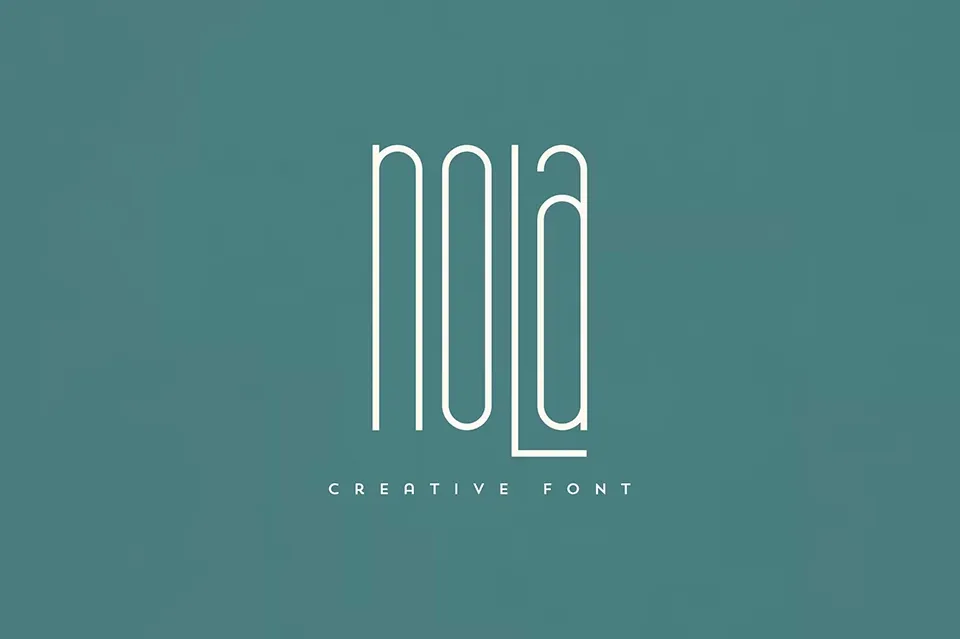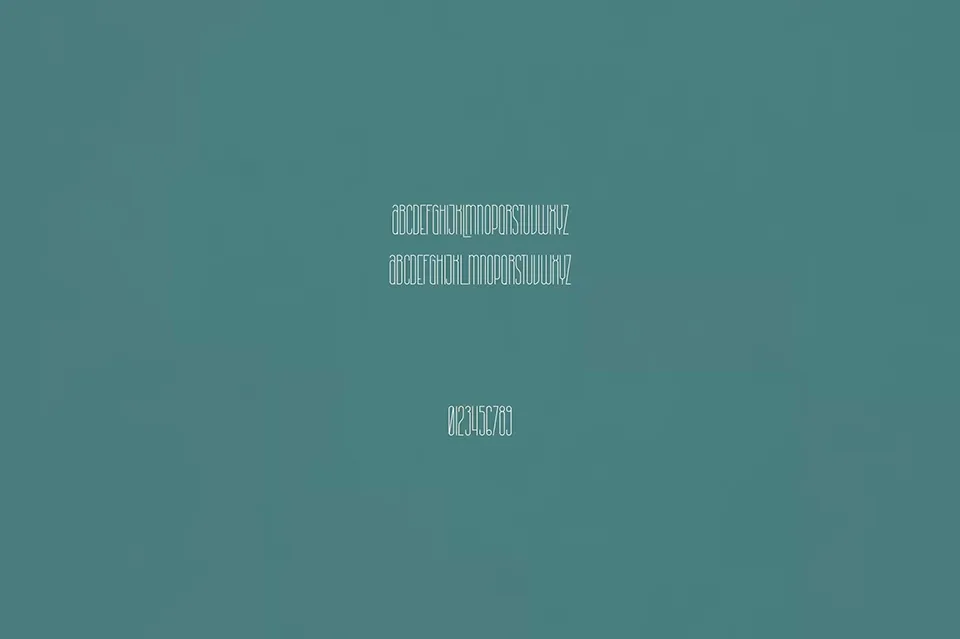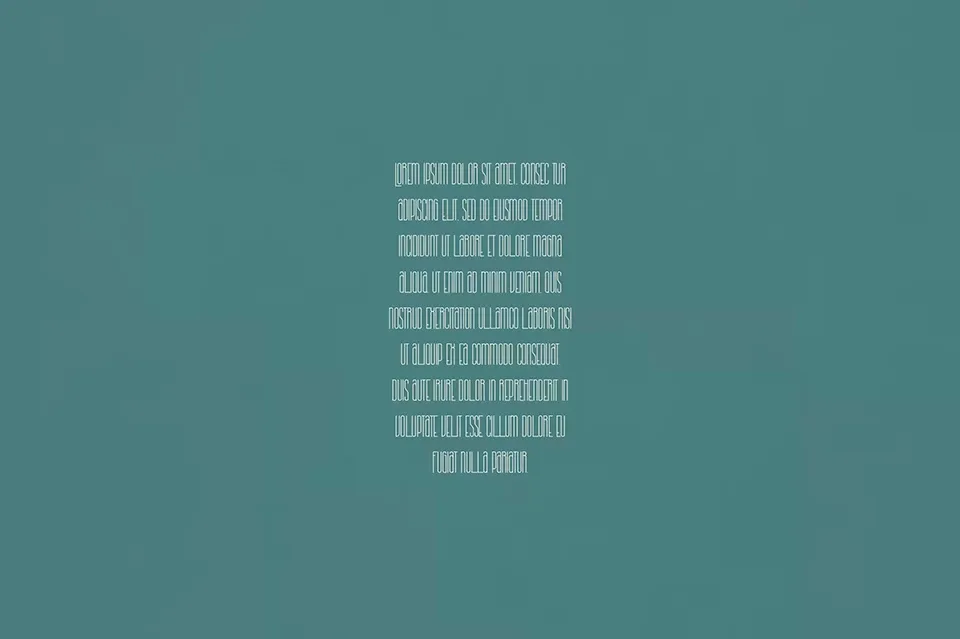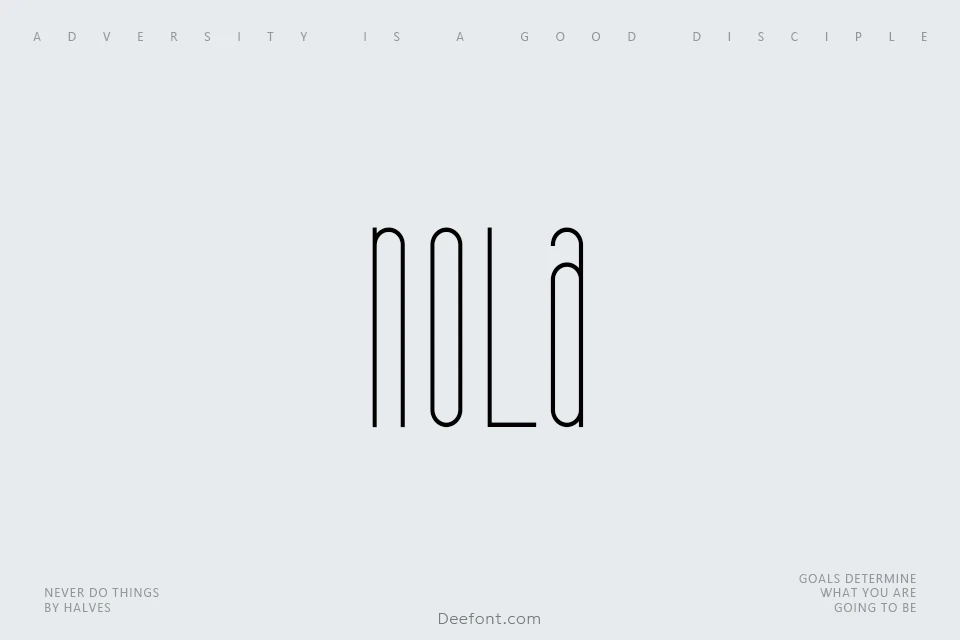
Nola Font
The Nola Font is an elegant and versatile typeface designed to make your typography truly unique. With its tall, thin, and creative letterforms, this font is perfect for logos, branding, headlines, and plain text, adding a modern and sophisticated touch to any design project.